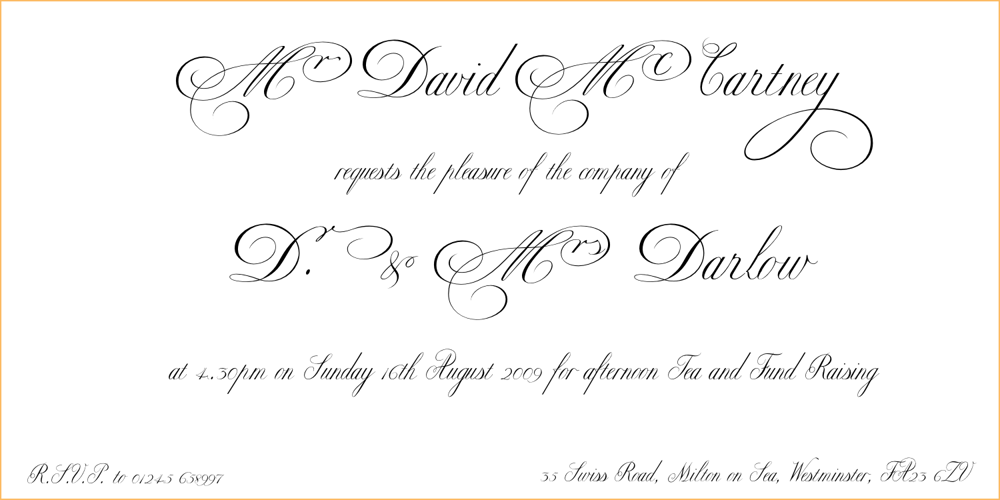
Copper Font Family was designed by Tony Nash and published by Classic Font Company. Copper contains 20 styles and family package options. ‘The Copperplate Set’ a series of type that can be used to produce letters and documents in the style used in the 19th century. The set is divided into two families Copper and Classic with an extra font called Decor. The Copper faces are based on true copperplate hand writing as would be produced by using a split nib. Classic however is based on engraved text and has a more precise feel to it. Both families have many extras allowing decoration and florishes to be created or added. The Decor font finishes the set by adding instant headers and footers which are entered directly from the keyboard.